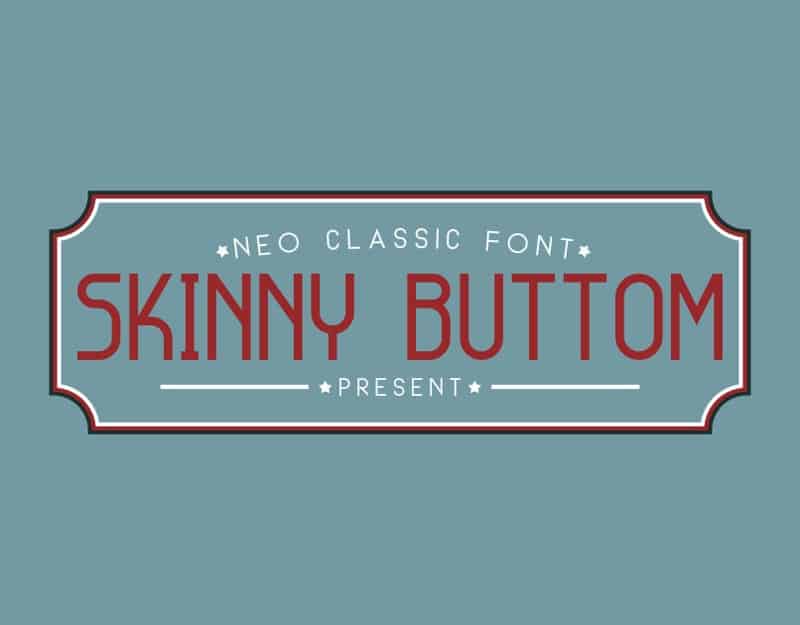
Skinny Buttom Display Font
Skinny Buttom Display Font is a sans-serif display typeface, packed full extra characters and some bonus icons! Its mono thickness and utilitarian design lend well to rustic, aged, and industrial applications. It’s based on radically simplified forms, functionality and rationality. The embodiment of modernism, modern and authentic style.